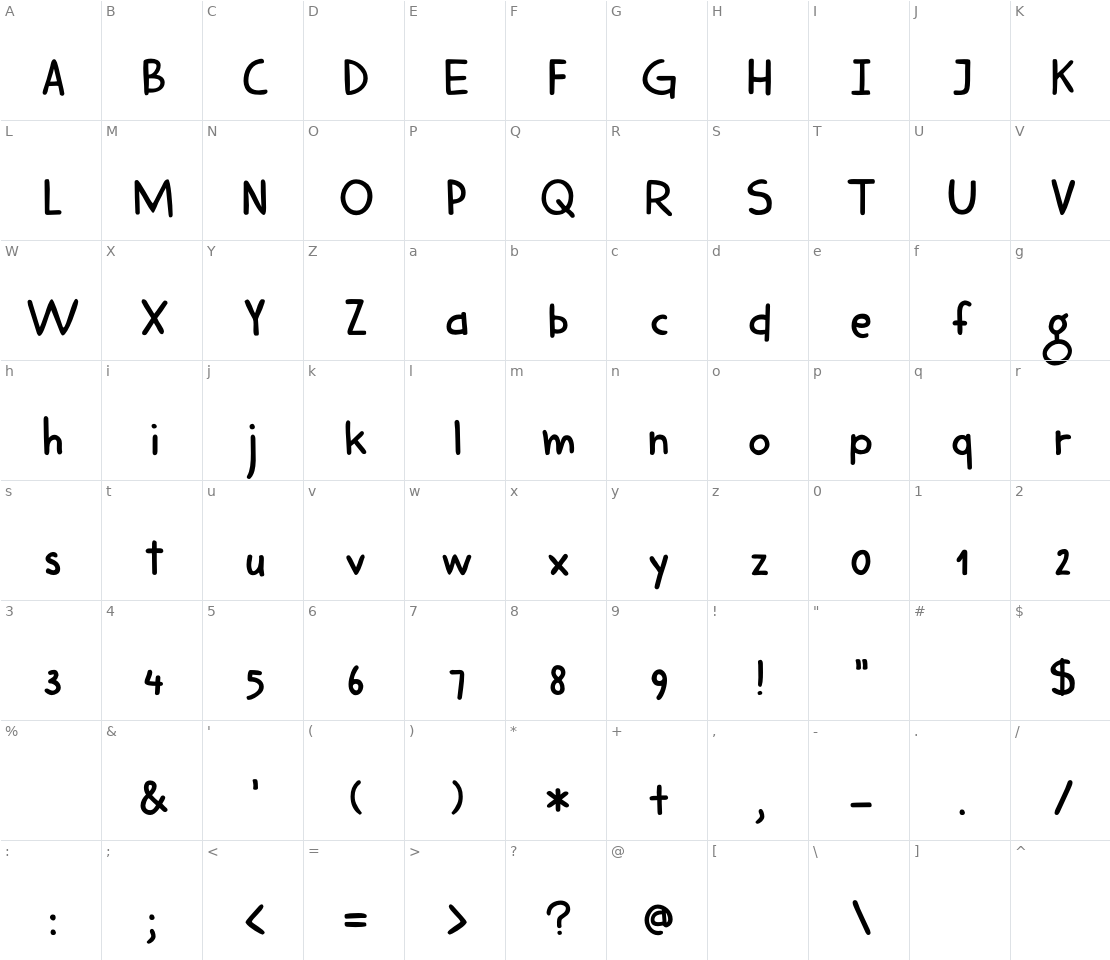
DK Harimau
DK Harimau is a rounded, casual handwritten face from Hanoded that looks like it was scrawled with a chunky marker by someone having a good time. The letterforms are soft and slightly uneven, with a childlike warmth that keeps things friendly and approachable without feeling sloppy. A natural pick for children's books, informal branding, packaging, or anything that needs genuine playfulness baked into the type itself.